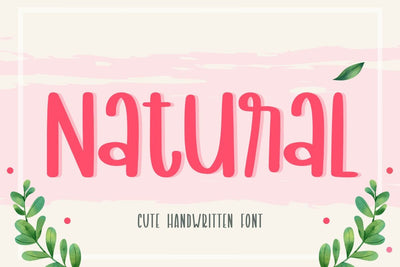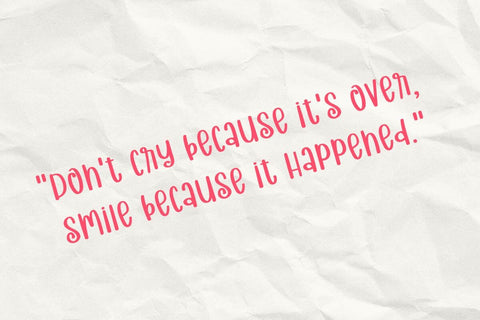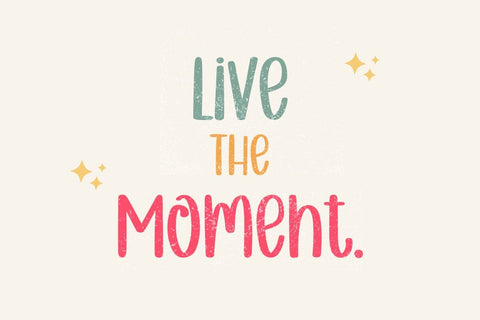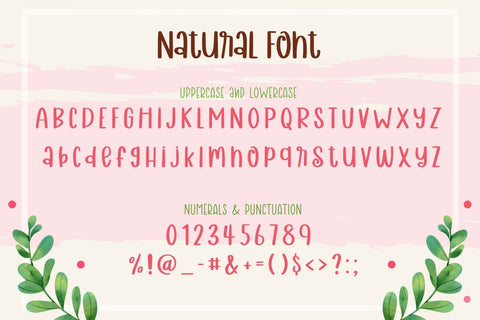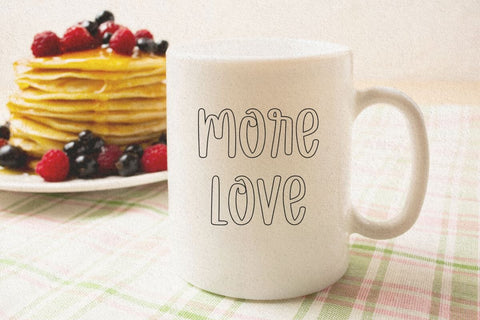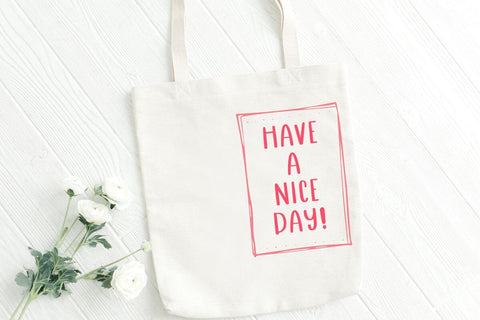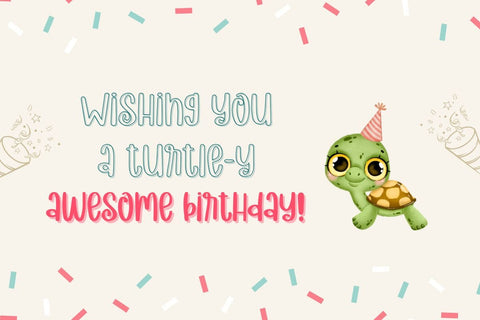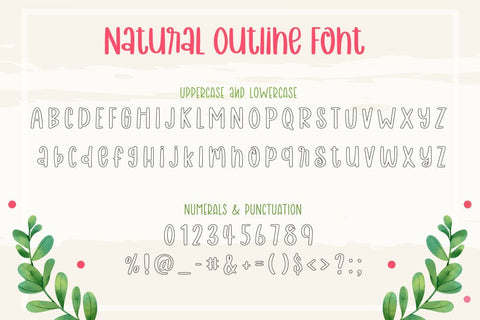
Nattural - Handwriting Font
Natural is a cute handwriting font that comes in two styles, regular and outline. It is a non-standard form of writing but has a playful and rounded design with fun elements within the letters. You can use it for writing or incorporate it into various design projects.